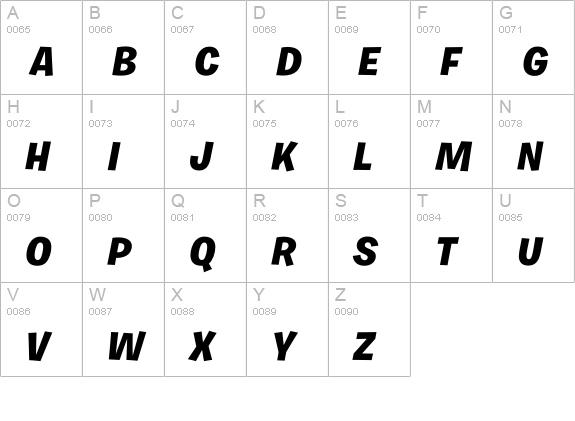
Burbank Small Black Italic Font Details
Burbank Small Black Italic is a maximum-weight, dramatic, italic variant in the Burbank typeface family \xE2\x80\x94 well suited to maximum-impact headlines, posters, and packaging.
Burbank Small Black Italic font is a stylish and modern typeface that exudes sophistication and elegance. Its sleek design and subtle italics add a touch of flair to any project, making it perfect for a wide range of applications. The boldness of the black weight makes it stand out while maintaining a sense of refinement. This versatile font is ideal for branding, advertising, editorial design, and more. Its clean lines and sleek curves give it a contemporary feel that is sure to make a statement. Whether you're creating a logo, poster, website, or any other design project, Burbank Small Black Italic font will help you achieve a polished and professional look. And the best part? Burbank Small Black Italic font is available for free download at FontsMarket.com. You can easily access this stunning font and use it in your projects without any cost. Don't miss out on this opportunity to enhance your designs with Burbank Small Black Italic font today!